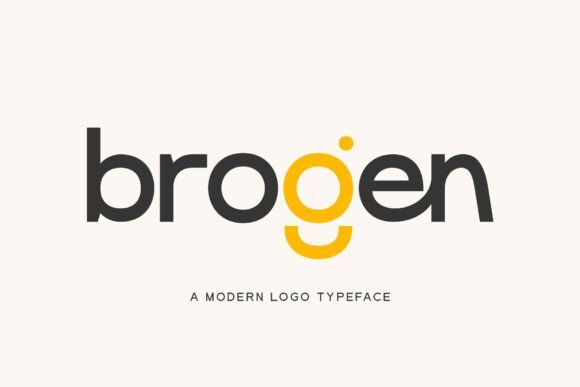
The Perfect Typography Companion for Your Next Creative Project
Have you ever stared at a blank canvas, waiting for inspiration to strike? That’s exactly where I was when I stumbled upon the Brogen Font. Its sleek lines and minimalist charm instantly caught my attention, and I knew I had to learn more. As a designer, I’m always on the lookout for fonts that not only look great but also convey a specific message or tone. That’s exactly what Brogen Font delivers – a perfect blend of style and clarity.
Designed to bring a contemporary touch to your branding projects, Brogen Font is a versatile and bold yet friendly font that’s ideal for logos, headlines, packaging, and modern editorial layouts. Whether you’re working on tech branding, furniture catalogues, or lifestyle campaigns, Brogen Font ensures your design remains fresh, readable, and memorable.
Brogen Font Key Features
- Unique Characteristics: The Brogen Font features a unique blend of modern and traditional elements, with a distinctive flair and elegance that sets it apart from other fonts.
- Font Family: The Brogen Font is part of a larger font family, which includes a range of complementary fonts and styles that can be used to create a cohesive and professional look.
Brogen Font Review
I recently had the chance to work with the Brogen font, and I must say it’s a unique addition to any design project. ✨
- ✨ The font’s bold and striking style is perfect for headlines and titles, adding a touch of sophistication to any design.
- ✨ The font’s versatility is impressive, making it suitable for a wide range of projects, from branding to publishing.
- ✨ The font’s high-quality design ensures that it scales well across different resolutions and devices.
- ⚠️ The font may be too bold for certain projects, potentially overwhelming the viewer.
- ⚠️ Some characters, such as the lowercase ‘a’ and ‘c’, may not be as legible as they could be.
Overall, I would rate the Brogen font as a solid addition to any designer’s toolkit. While it may not be perfect, its strengths far outweigh its limitations, making it a great choice for designers looking to add some visual flair to their projects.